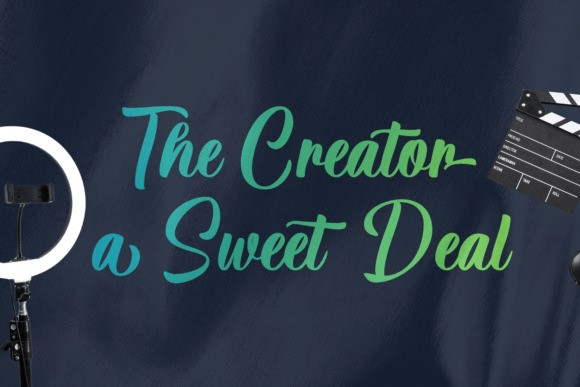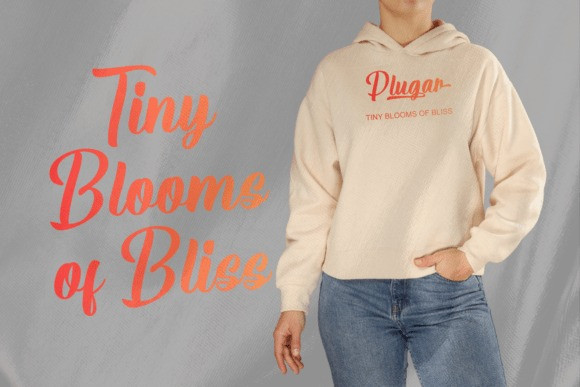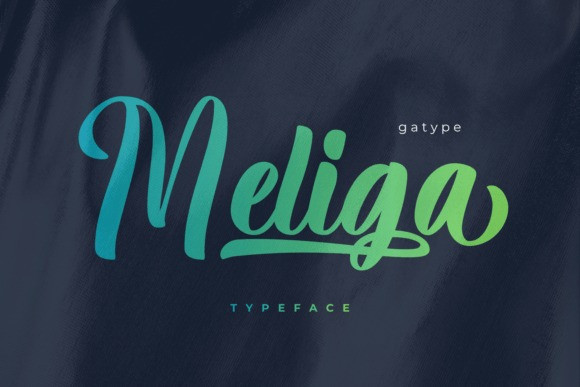
Meliga Font
Meliga Font a modern classy script font with bold character and smooth circular flow. Designed to bring elegance and energy into your typography, Meliga makes it easy to achieve a natural hand-lettered look in seconds.
Created by Gatype, this font is crafted to help designers effortlessly combine and explore styles, giving more flexibility in creative compositions. Its strong strokes paired with fluid movement make it stand out in any visual project.
Meliga Bold Script comes with a bold, smooth, and expressive handwritten style—perfect for logotypes, branding, packaging, merchandise, labels, and many other creative applications.